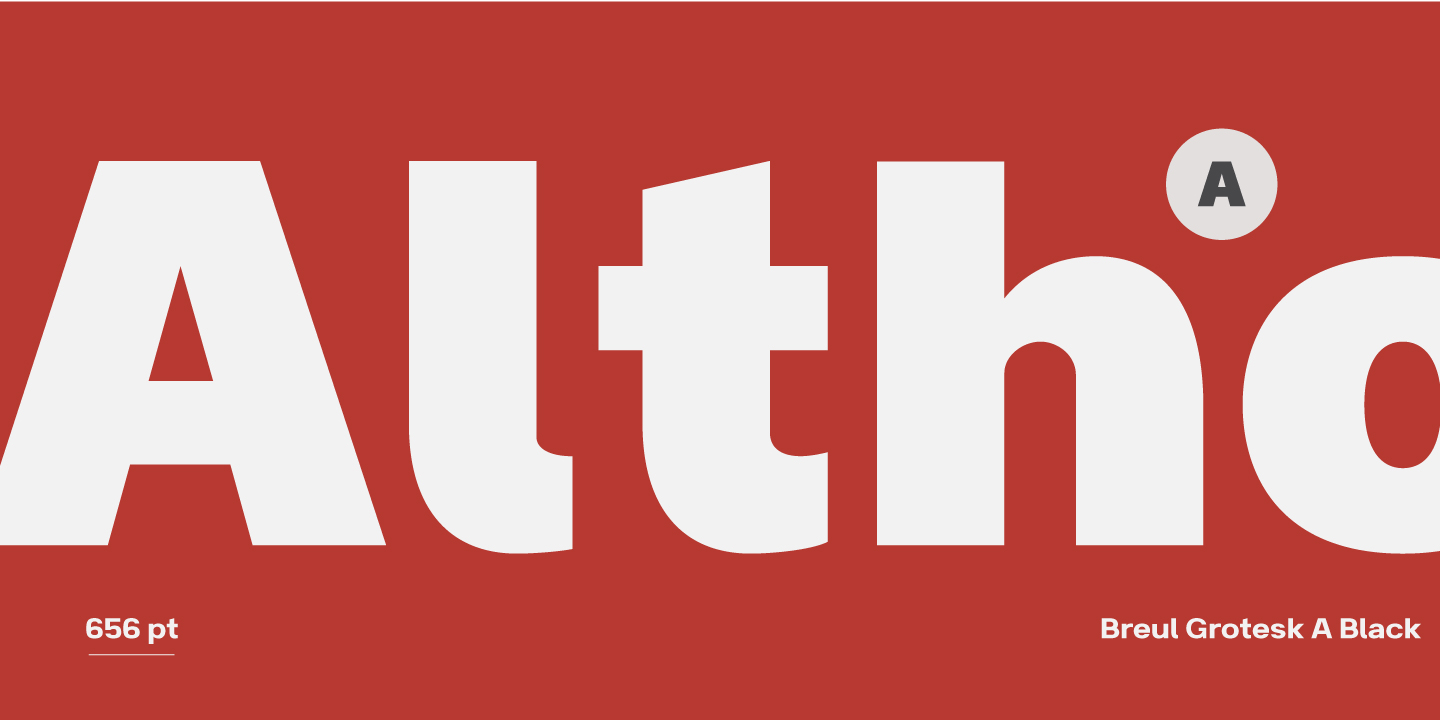
Taking inspiration from an attempt to marry art with industry of Bauhaus (1919), Brueul Grotesk is classic and straightforward, cutting back superfluous elements. A Sans Serif type, it’s like a design from the Machine Age. It comes in A and B sets to offer end variations—choose the bulbous terminals set if you need a less stern impression. It is then suitable for diverse demands. Brueul Grotesk has A and B sets with 16 weights each, giving you an all-purpose usage typeface.